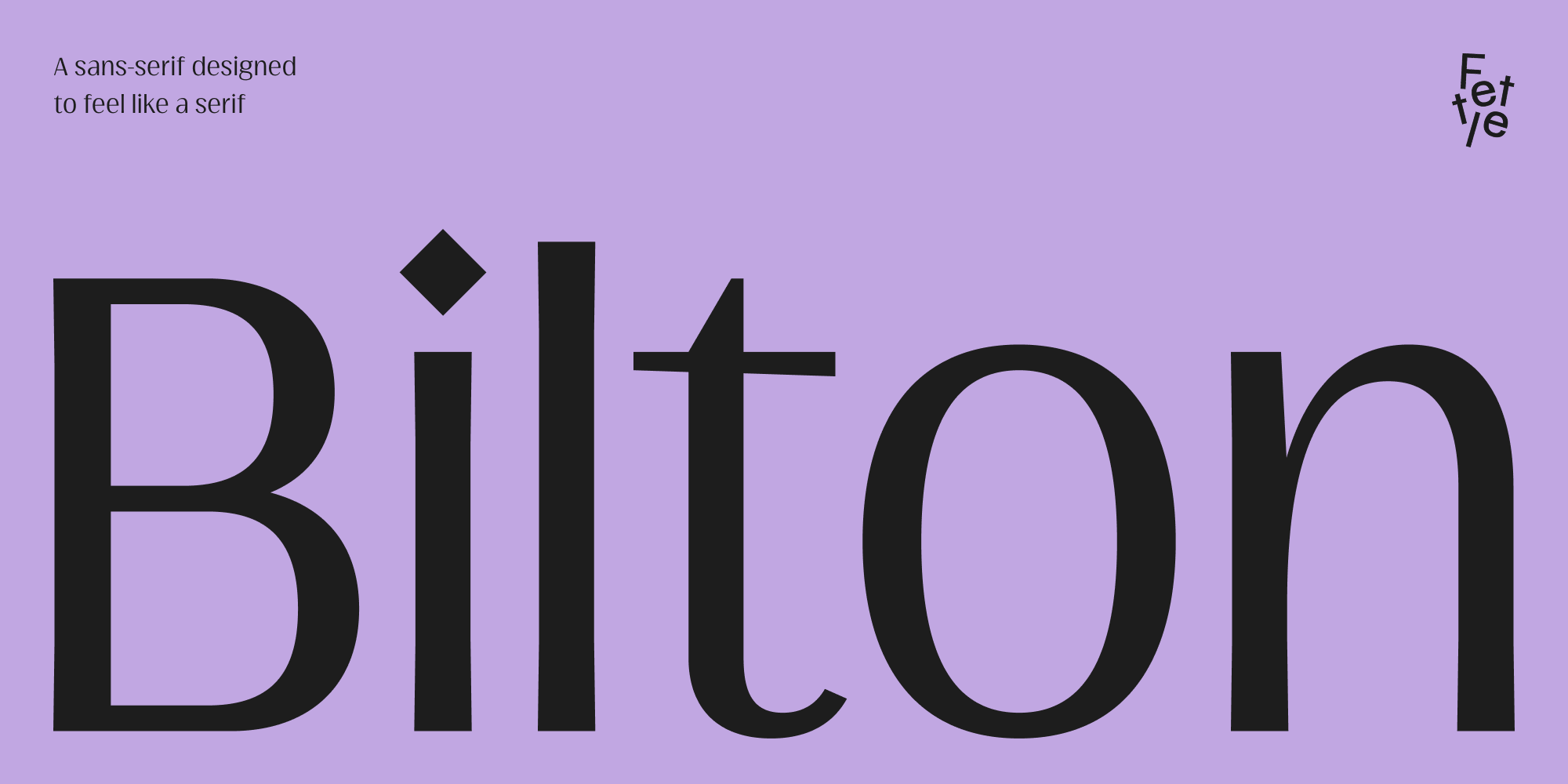
Bilton
Bilton is a sans serif font family. This typeface has ten styles and was published by Fettle Foundry.
Bilton is a sans-serif designed to feel like a serif. With an incredibly large X-height and soft flares Bilton has an air of elegance and class with a big splash of refined simplicity. It’s the Old Fashioned of the Fettle Foundry type families.
Envisioned as a display or headline typeface, the Bilton family contains ten weights – five roman and five italic – making it suitable for a variety of traditional and disruptive applications.
Bilton supports more than 300 Latin-based languages and features contextual alternatives for character combinations and languages.